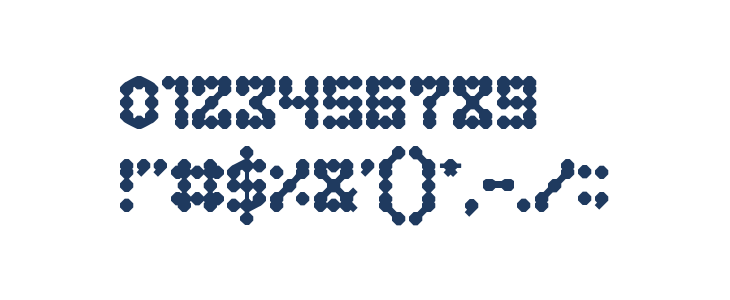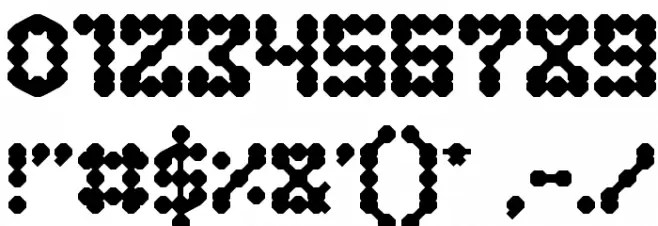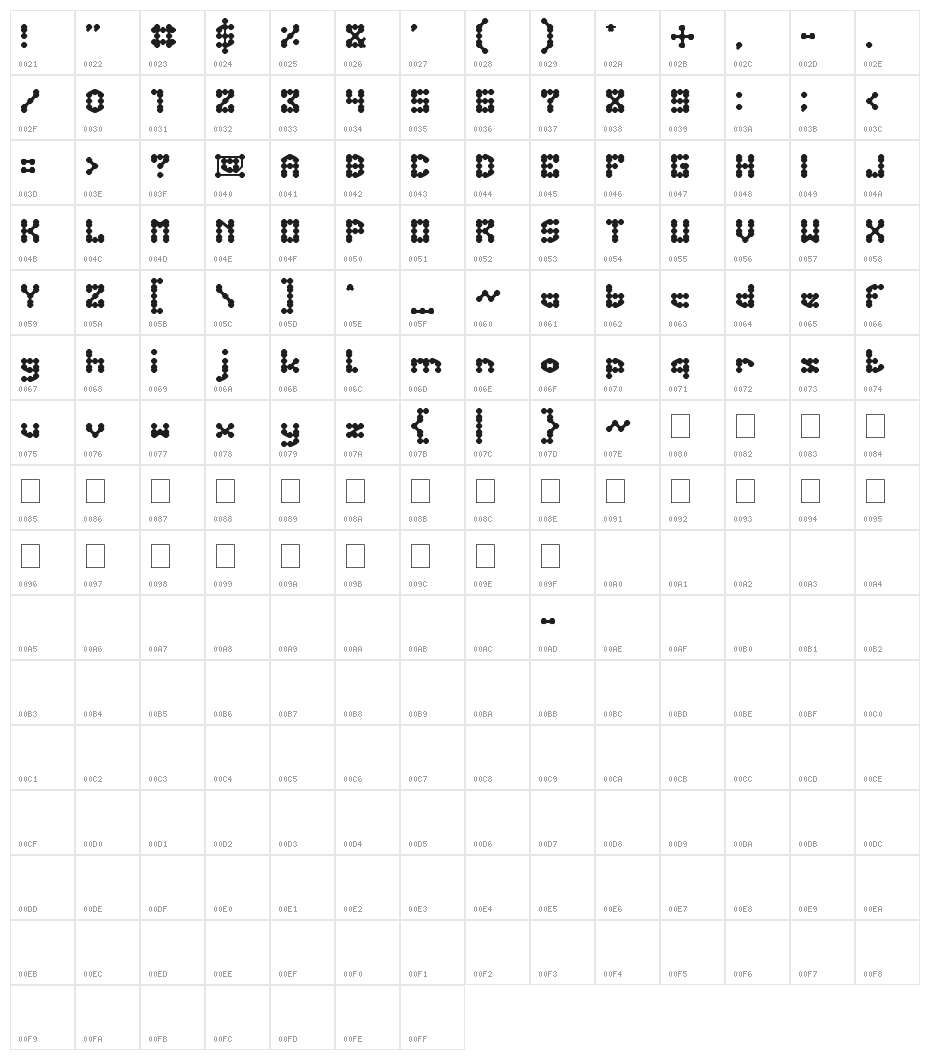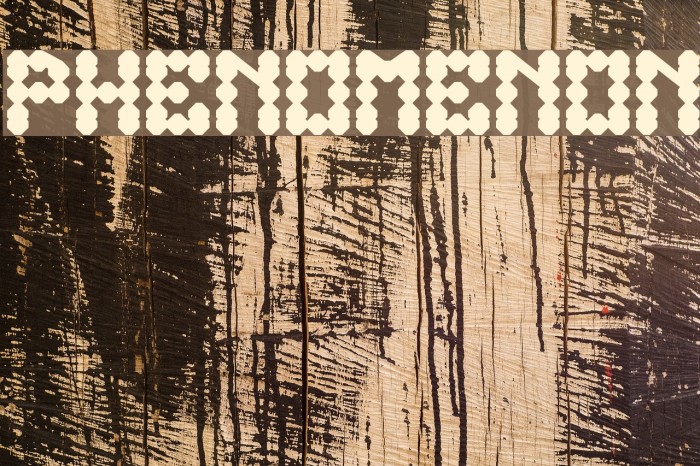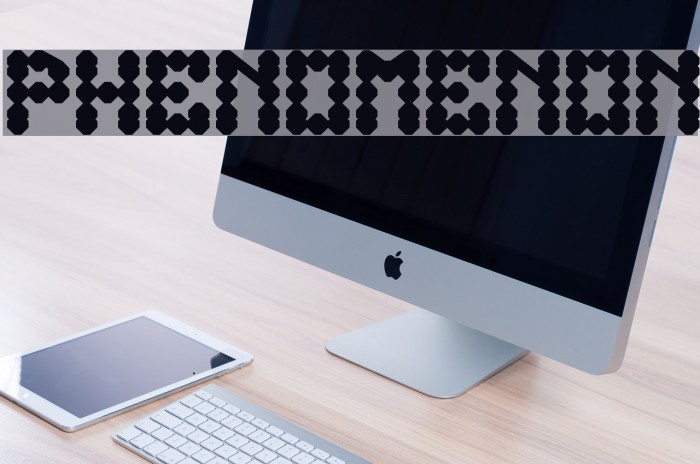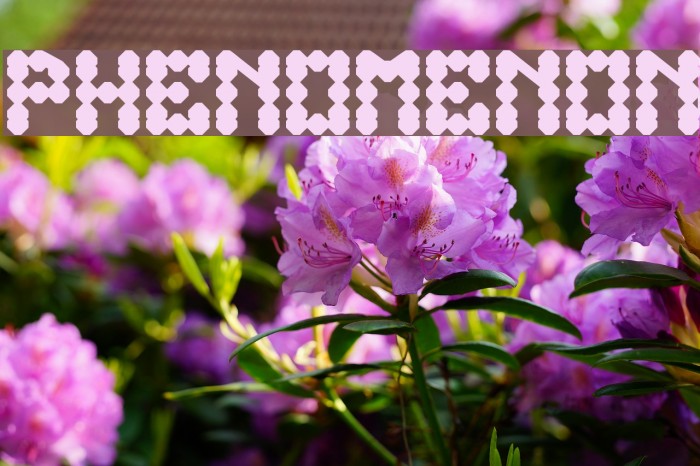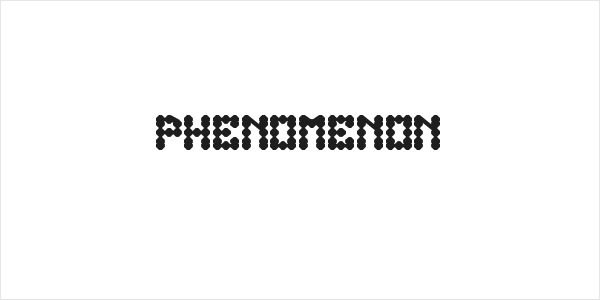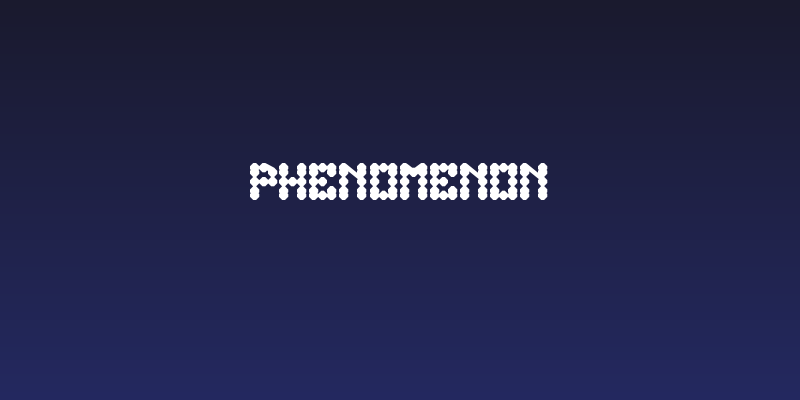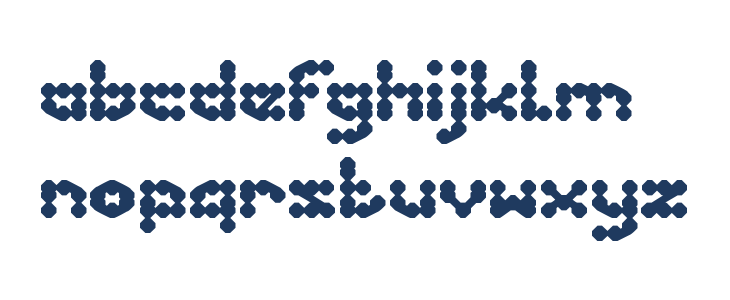
PHENOMENON Font
PHENOMENON Description
This font features a unique and playful design, characterized by its use of circular, bubble-like shapes to form each letter and number. The characters are bold and rounded, giving them a distinct, eye-catching appearance. The font maintains a consistent thickness throughout, with no variation in stroke width, which contributes to its cohesive and uniform look. The playful nature of the font makes it suitable for creative and informal applications. Its geometric style is reminiscent of digital or pixelated designs, yet it retains a softness due to the rounded edges. The spacing between characters is tight, enhancing the compact and dense appearance of the text.
| Overall Style | Playful, Modern |
| Proposed Projects | Ideal for children's books, playful branding, party invitations, or any project requiring a fun and informal touch. |